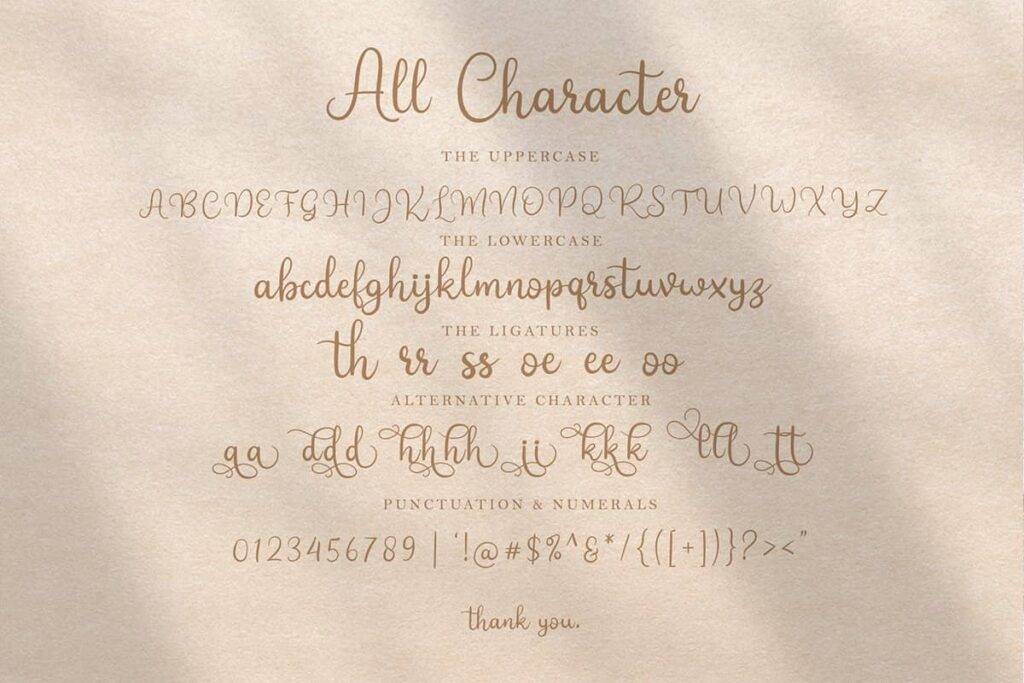
Bright Star Font
This is a gorgeous script and calligraphy font that will never go out of style. It’s the greatest option for making memorable logos, branding, and quotes. Every letter has a distinct and lovely touch that will bring your design to life! Jos Gandos created and shared the Bright Star font. Bright Star is the typeface family. Regular is the subfamily. On November 26, 2020, the Font was made public. The typeface is available in two different formats: OTF and TTF. You must first extract the fonts from the ZIP or RAR file before installing them. Windows 10/8/7 (64-bit) By right-clicking on the Font, you may install it. OS X (Macintosh Operating System) is a computer operating system developed by Apple. To install the Font, double-click it. From the drop-down option, choose “Install font.” It has an amazing Calligraphy touch following its font family, making it more perfect for any bold project. The Font is categorized under Script and Calligraphy font.
Bright Star is the ideal typeface for all of your whimsical designs. It’s a lovely script typeface that’s ideal for logo creation, menu designs, product packaging, quotes, or just adding appealing text to any backdrop image. The Font looks great on any colour combinations, but it looks stunning more on any type of light colour. The Font might be a great option for making shopping bags or visiting cards for any women clothing line. The Font has bold vibes within it, which makes it more perfect for using any wallpaper.
NameBright Star Font
StyleScript, Calligraphy
DesignerJos Gandos